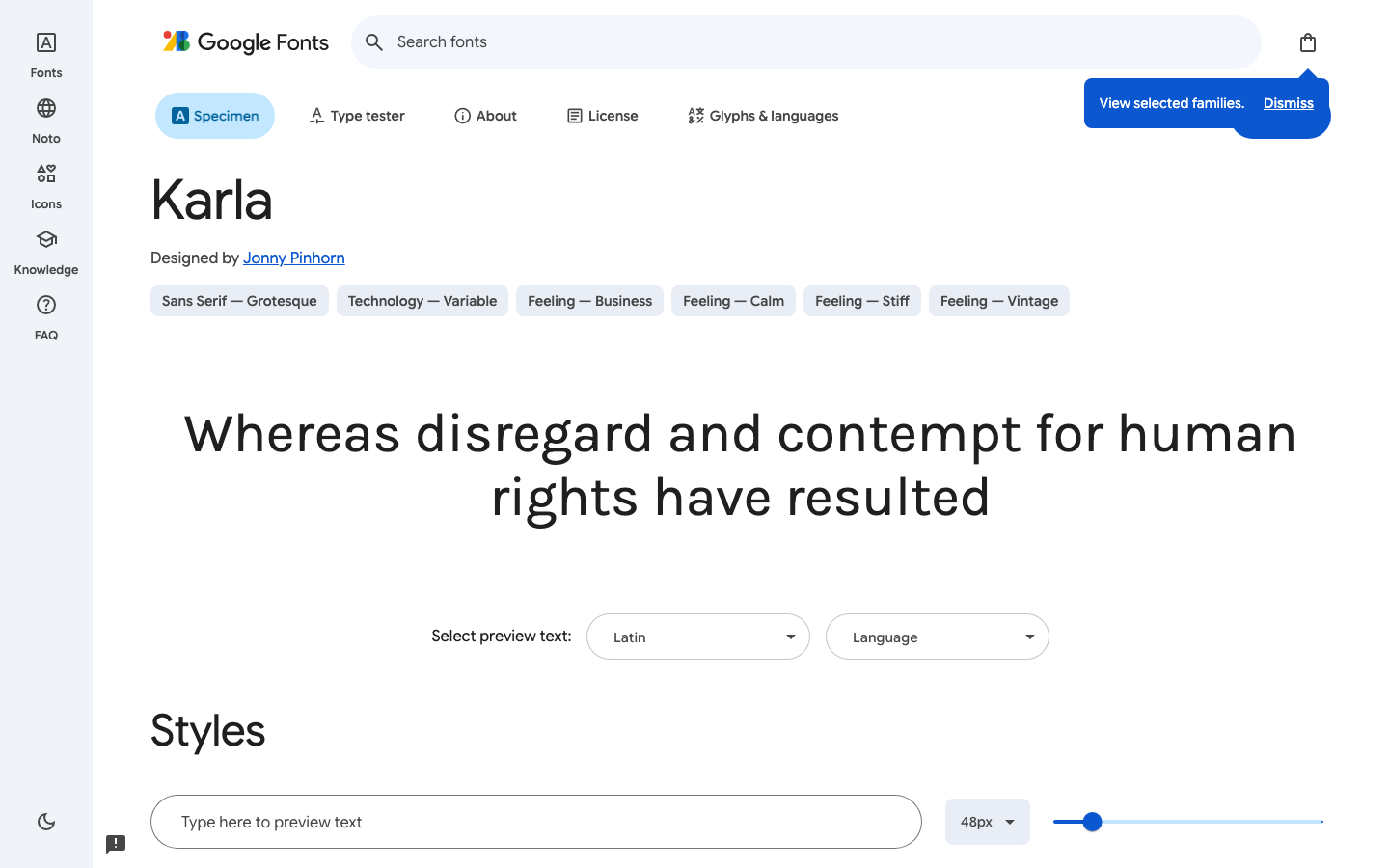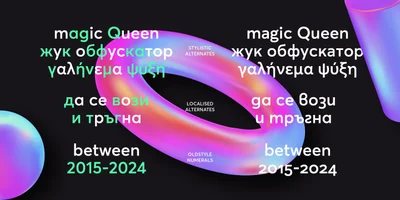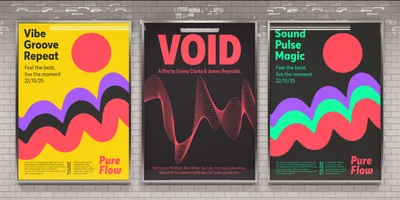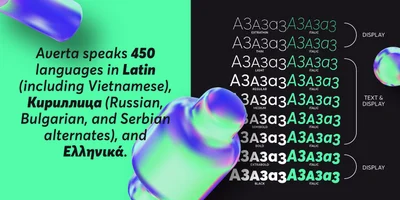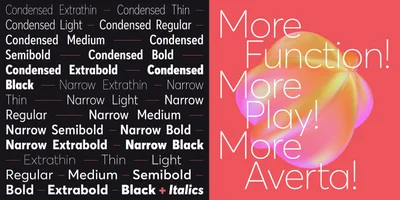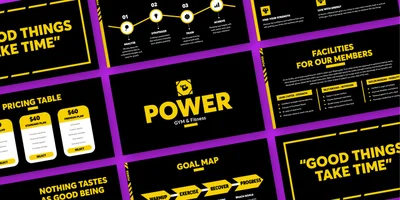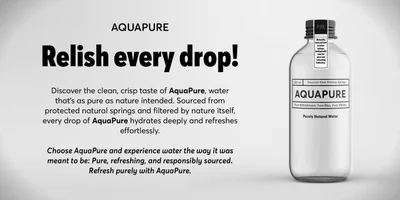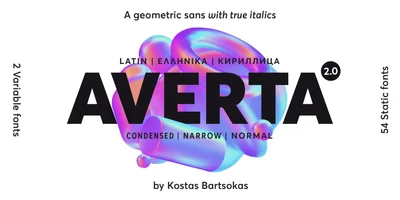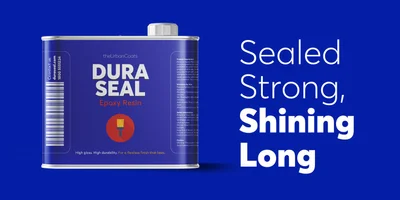
Averta vs Karla
Averta and Karla are both sans-serif typefaces sharing a warm foundation. Where Averta leans geometric, Karla brings neo-grotesque. Compare which suits your Branding project.
Design overlap:50%
| Feature | Averta | Karla |
| Variable Font | No | Yes |
| Weights | Multiple | Variable |
| Language Support | latin, latin-extended, cyrillic, greek | latin, latin-extended |
| Source | Kostas Bartsokas | Jonathan Pinhorn |
Recommended: Averta
- geometric design character
- Suited for Corporate and Tech
- From kostas-bartsokas
Consider: Karla
- neo-grotesque design character
- Suited for Editorial and Web
- From jonathan-pinhorn
- Available as a variable font